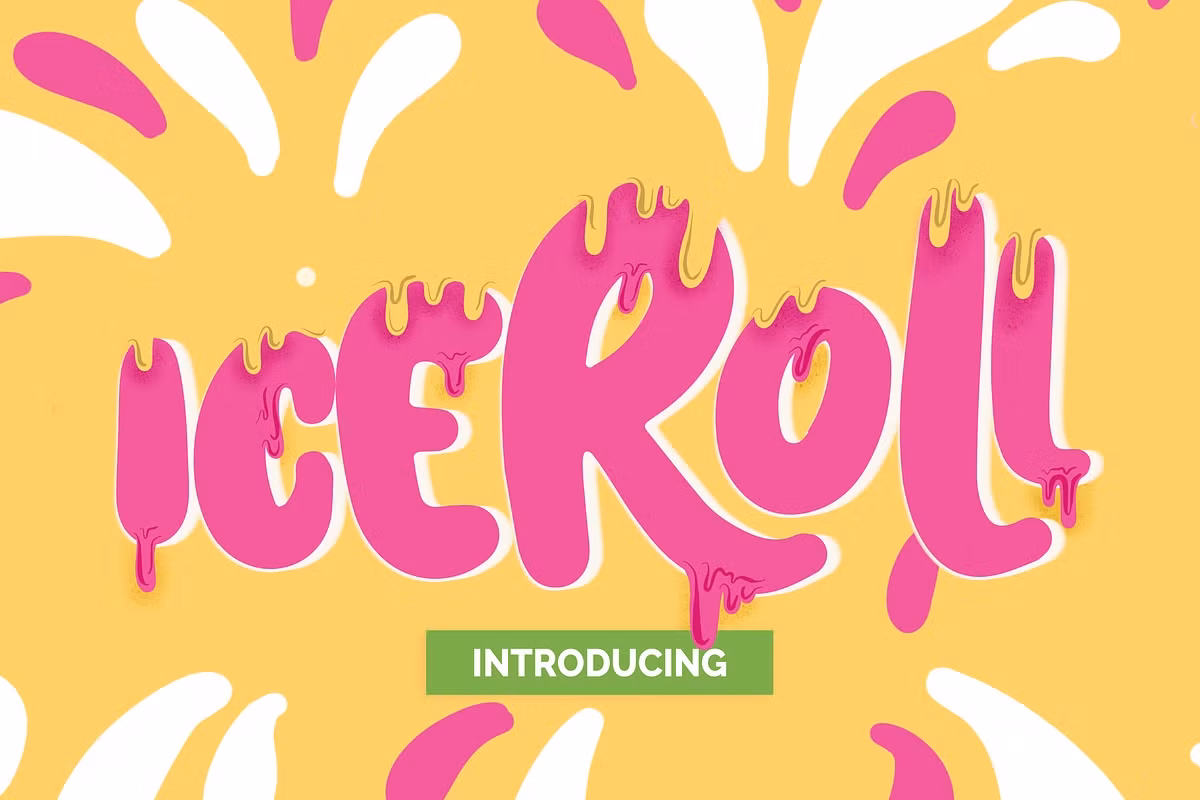
Iceroll Font Free Download is a sweet, playful typeface inspired by the fun and flavor of ice cream shops, desserts, and all things delightful. Please note: you must purchase this font for commercial use, but you can test it through a free download. With its rounded curves, bouncy baseline, and cheerful vibe, Iceroll is perfect for bakery logos, kids’ products, packaging, party invitations, and joyful social media graphics.
This font brings a handcrafted, friendly look to your designs—ideal for creators who want to add warmth and whimsy. Whether you're branding a dessert brand or designing fun merchandise, Iceroll Font Free Download delivers personality and charm in every letter. Fully compatible with Adobe Illustrator, Photoshop, Canva, and more. Download it today for personal use and make your next project extra sweet with the delightful energy of Iceroll.